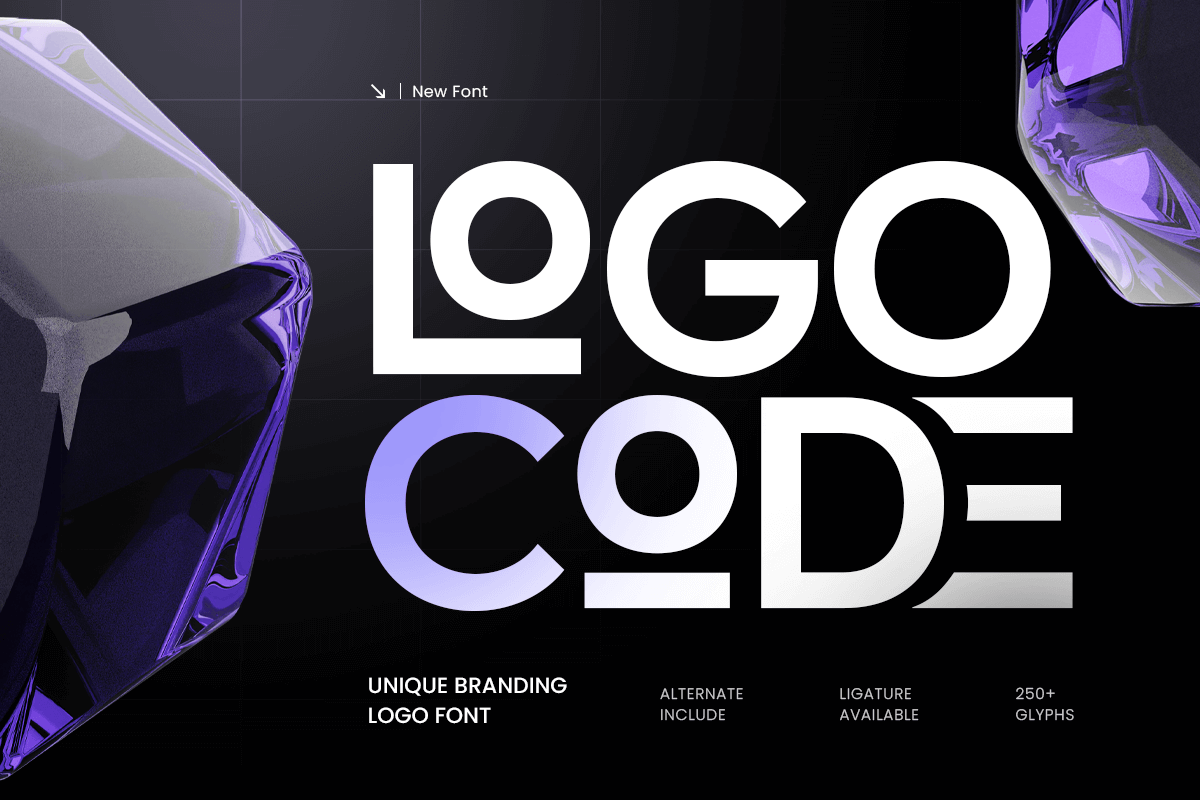
Logo Code
-Modern Techno Branding Logo FontLogo Code - Modern Techno Branding Logo Font
LOGO CODE is a modern techno branding logo font built to create clean, memorable wordmarks with a modern edge. With distinctive character shapes and a structured, contemporary feel, this typeface helps brands look smart, confident, and instantly recognizable across every touchpoint.
Crafted for modern visual systems, LOGO CODE maintains clarity and balance while adding subtle uniqueness - making it suitable for both minimal and expressive branding approaches. Its clean construction ensures consistency and readability in both digital and print environments.
Whether you’re shaping a new brand or refining an existing identity, LOGO CODE delivers a professional typographic foundation that feels intentional, modern, and brand-focused.
Inspiration Behind LOGO CODE
LOGO CODE is inspired by modern branding systems and digital-era typography - where clarity, structure, and uniqueness define the identity. Designed for logo design and identity systems, LOGO CODE works seamlessly for startups, tech brands, creative studios, and modern corporate branding. It is built to perform across logos, website headers, UI design, packaging, social media content, pitch decks, and editorial headlines—anywhere typography needs to feel clean, coded, and brand-ready.
LOGO CODE Font Features
Unique letterforms optimized for logo design and wordmarks
Clean modern structure with strong branding readability
Logo design, wordmarks, and brand identity systems
Startup, tech, agency, and modern corporate branding
Website headers, UI/UX, and digital product design
Packaging, labels, signage, and marketing collateral
Social media campaigns, ads, and poster headlines
Build a smart, modern identity with LOGO CODE - crafted for unique branding that stays clean and unforgettable. 💻✨